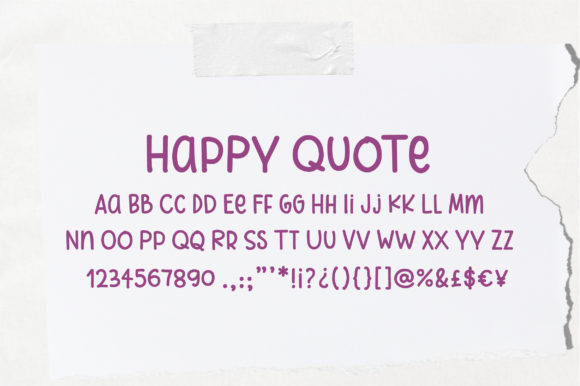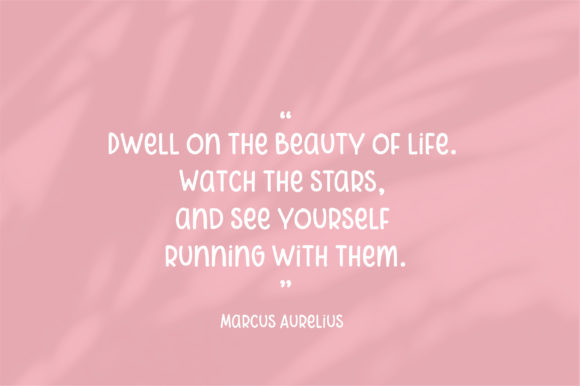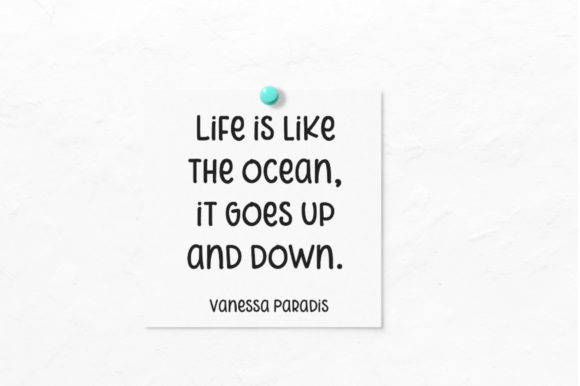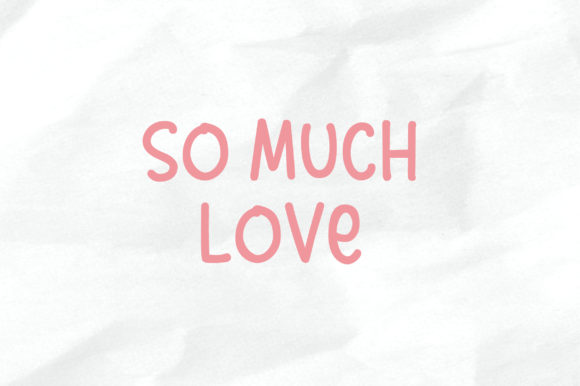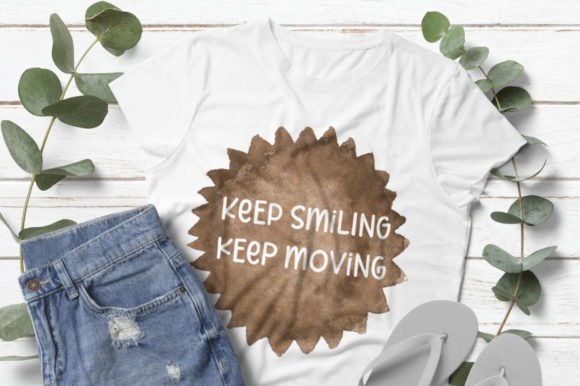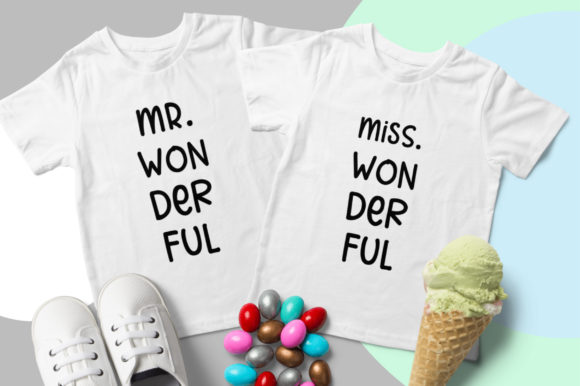
Introducing Happy Quote Font: The Perfect Addition to Your Design Arsenal
Are you a designer, crafter, or educator looking for a font that can add a personal touch to your work? Look no further than Happy Quote Font, a delightful and straightforward lettered handwritten font that’s perfect for creating chalkboard quotes, teaching materials, and more. In this article, we’ll dive into the world of Happy Quote Font, exploring its features, benefits, and uses, as well as provide tips on how to make the most of this beautiful font.
What is Happy Quote Font?
Happy Quote Font is a cute and simple lettered handwritten font designed to bring a touch of authenticity to your designs. Its charming, laid-back feel makes it an ideal choice for creating chalkboard quotes, teaching materials, and other educational resources. With Happy Quote Font, you can add a personal and realistic feel to your work, setting it apart from more formal and traditional fonts.
Key Features of Happy Quote Font
- Cute and Simple Design: Happy Quote Font boasts a delightful, easy-to-read design that’s perfect for creating visually appealing quotes and teaching materials.
- Handwritten Style: The font’s handwritten style gives it a personal and authentic feel, making it perfect for adding a touch of warmth to your designs.
- Chalkboard-Inspired: Happy Quote Font is inspired by traditional chalkboard lettering, making it an excellent choice for creating educational resources and quotes.
- Easy to Read: The font’s clear and legible design ensures that your messages are conveyed effectively, making it perfect for use in teaching materials and quotes.
Benefits of Using Happy Quote Font
So, why choose Happy Quote Font for your design projects? Here are just a few benefits of using this lovely font:
- Adds a Personal Touch: Happy Quote Font’s handwritten style and charming design add a personal touch to your work, making it more relatable and engaging.
- Perfect for Educational Resources: The font’s chalkboard-inspired design and clear lettering make it an excellent choice for creating educational resources, such as teaching materials and chalkboard quotes.
- Versatile: Happy Quote Font can be used for a wide range of design projects, from social media graphics to print materials, and more.
Tips for Using Happy Quote Font
Now that you know a bit more about Happy Quote Font, here are some tips for getting the most out of this beautiful font:
- Pair with Other Fonts: Combine Happy Quote Font with other fonts to create visually appealing contrast and add depth to your designs.
- Experiment with Colors: Try out different colors and textures to add an extra layer of interest to your designs.
- Use for Chalkboard Quotes: Happy Quote Font is perfect for creating chalkboard quotes, so don’t be afraid to get creative and experiment with different designs.
- Add Graphics and Illustrations: Consider adding graphics and illustrations to your designs to make them more engaging and visually appealing.
Who Can Benefit from Happy Quote Font?
Happy Quote Font is an excellent choice for a wide range of designers, crafters, and educators, including:
- Teachers and Educators: Happy Quote Font is perfect for creating teaching materials, chalkboard quotes, and other educational resources.
- Graphic Designers: The font’s unique design and versatility make it an excellent addition to any graphic designer’s arsenal.
- Crafters and Artists: Happy Quote Font can be used to add a personal touch to craft projects, such as handmade cards, gift tags, and more.
- Social Media Managers: The font’s clear and legible design makes it perfect for creating social media graphics and quotes.
| Font Name | Happy Quote Font |
In conclusion, Happy Quote Font is a delightful and versatile font that’s perfect for designers, crafters, and educators looking to add a personal touch to their work. With its cute and simple design, handwritten style, and chalkboard-inspired look, Happy Quote Font is an excellent choice for creating chalkboard quotes, teaching materials, and more. So why not give Happy Quote Font a try and see how it can elevate your designs?